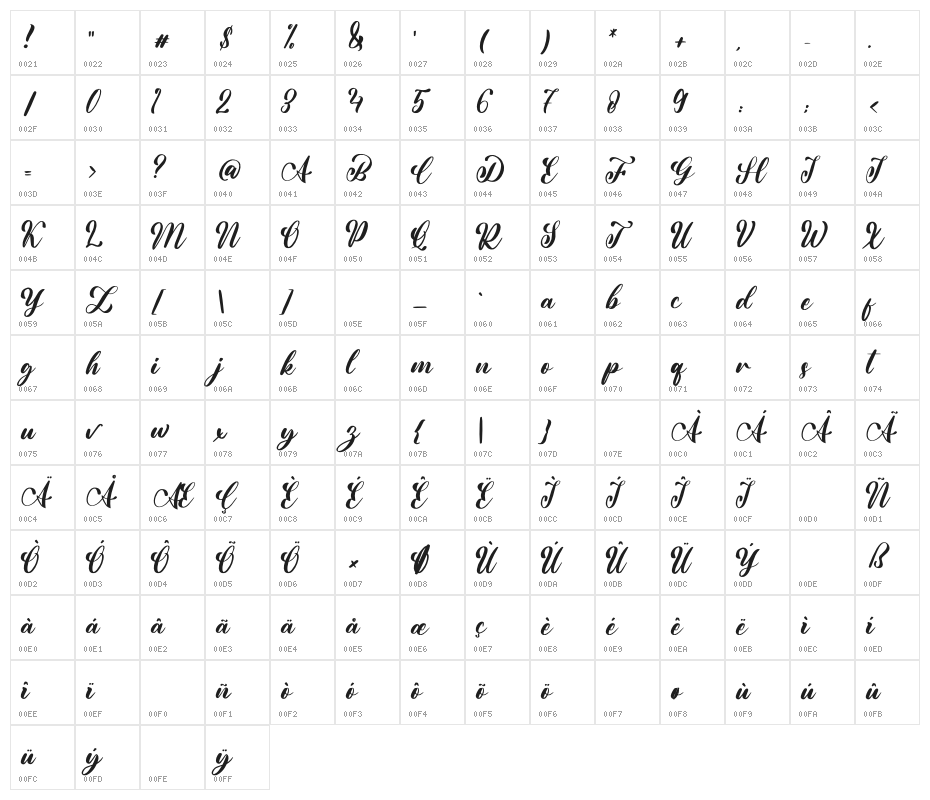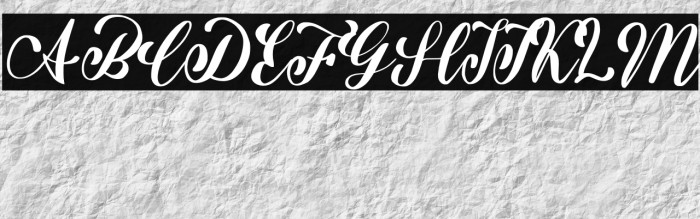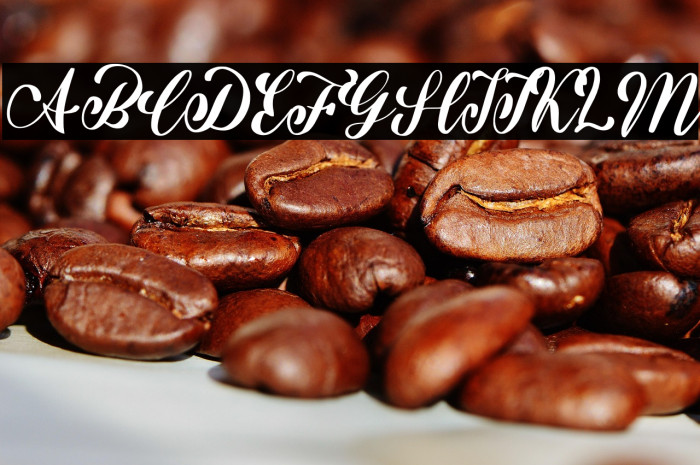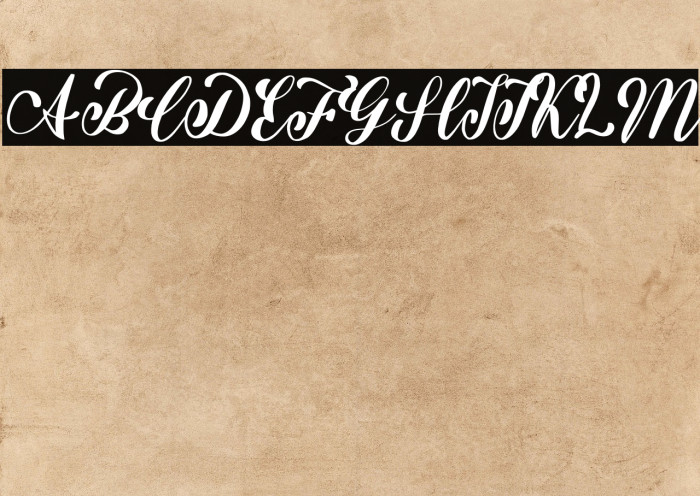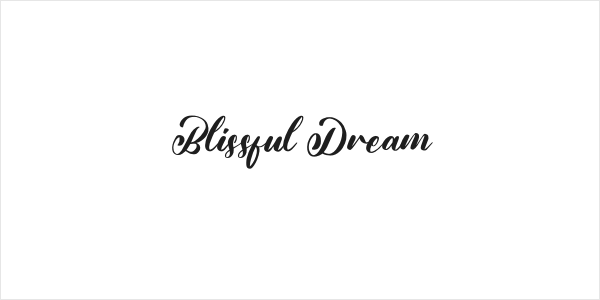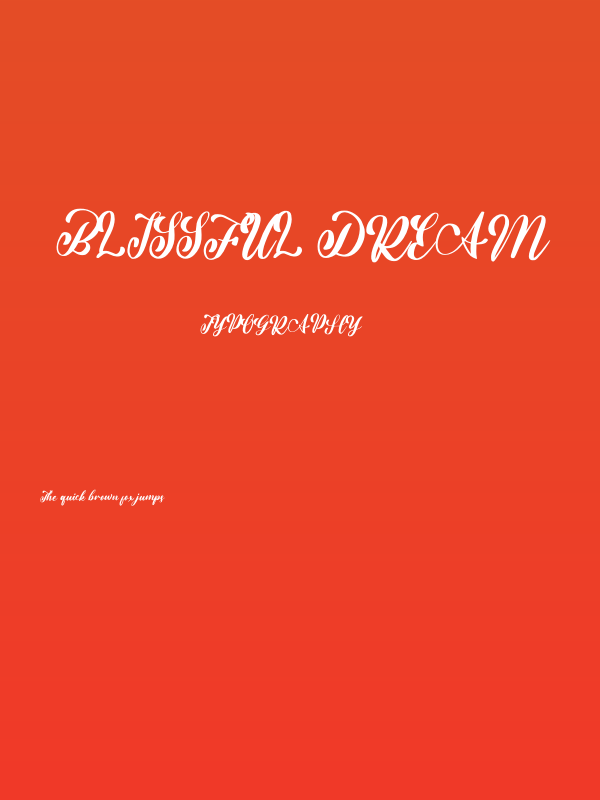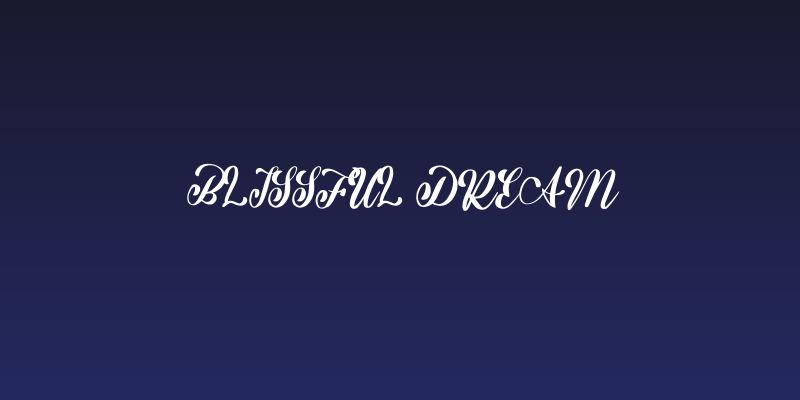
Blissful Dream Font
Blissful Dream Description
This font exudes elegance and sophistication with its flowing script style. The characters are gracefully connected, creating a seamless and fluid appearance. The uppercase letters are bold and prominent, while the lowercase letters maintain a delicate balance with their slightly narrower strokes. The numerals are consistent with the overall style, offering a cohesive look. Special characters are crafted with the same attention to detail, ensuring they blend harmoniously with the rest of the font. The overall impression is one of refinement and artistic flair, making it suitable for projects that require a touch of class and creativity.
| Proposed Projects | Ideal for wedding invitations, luxury branding, elegant logos, and artistic projects. |